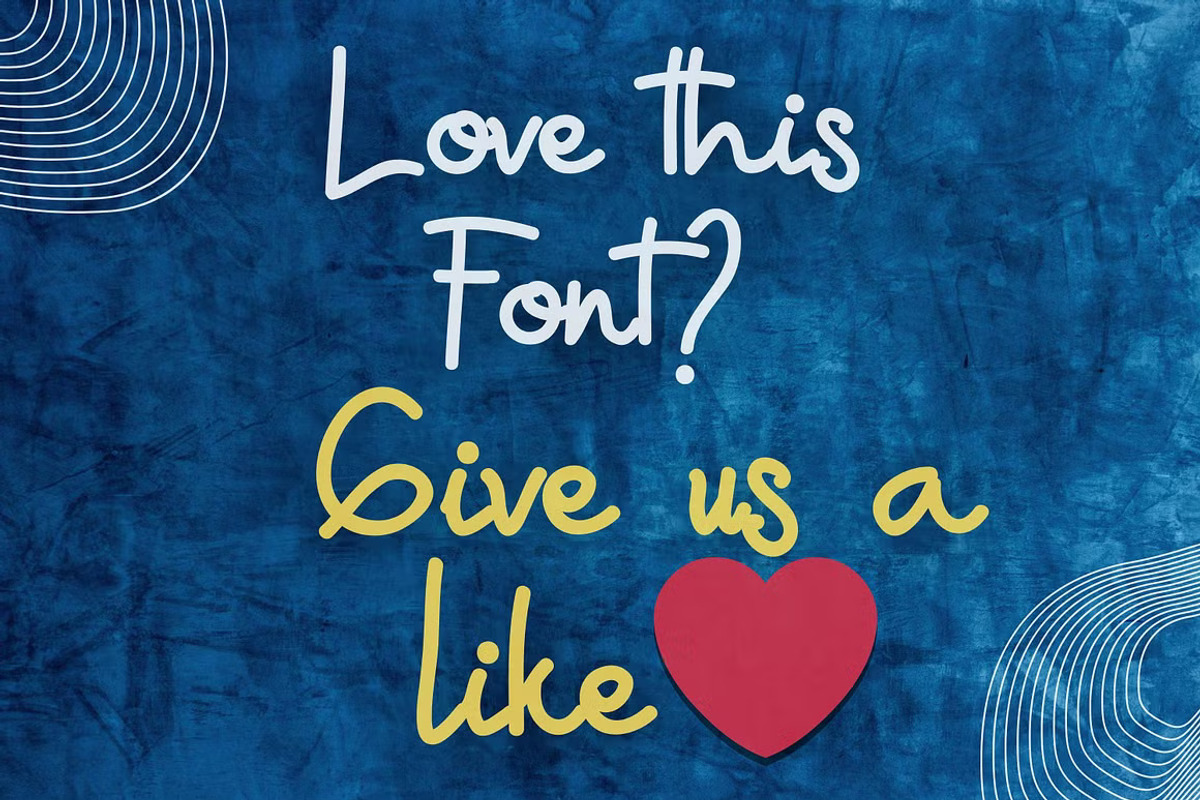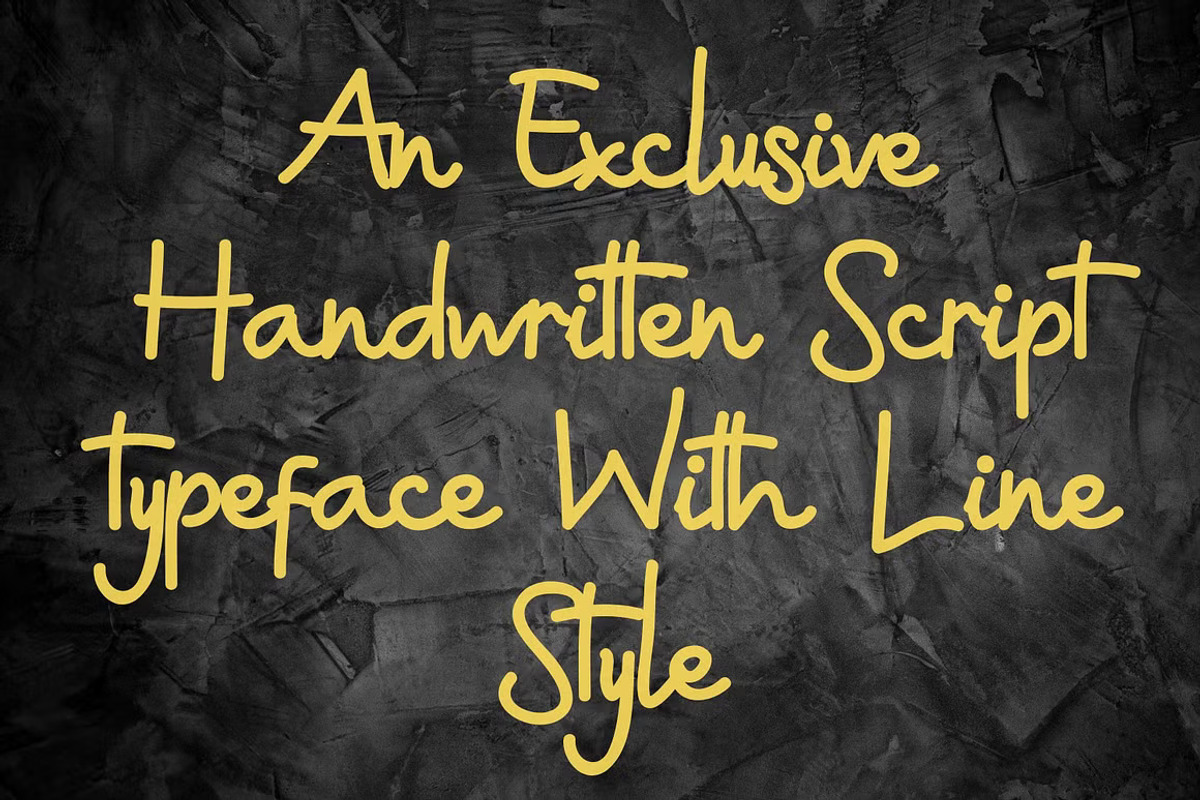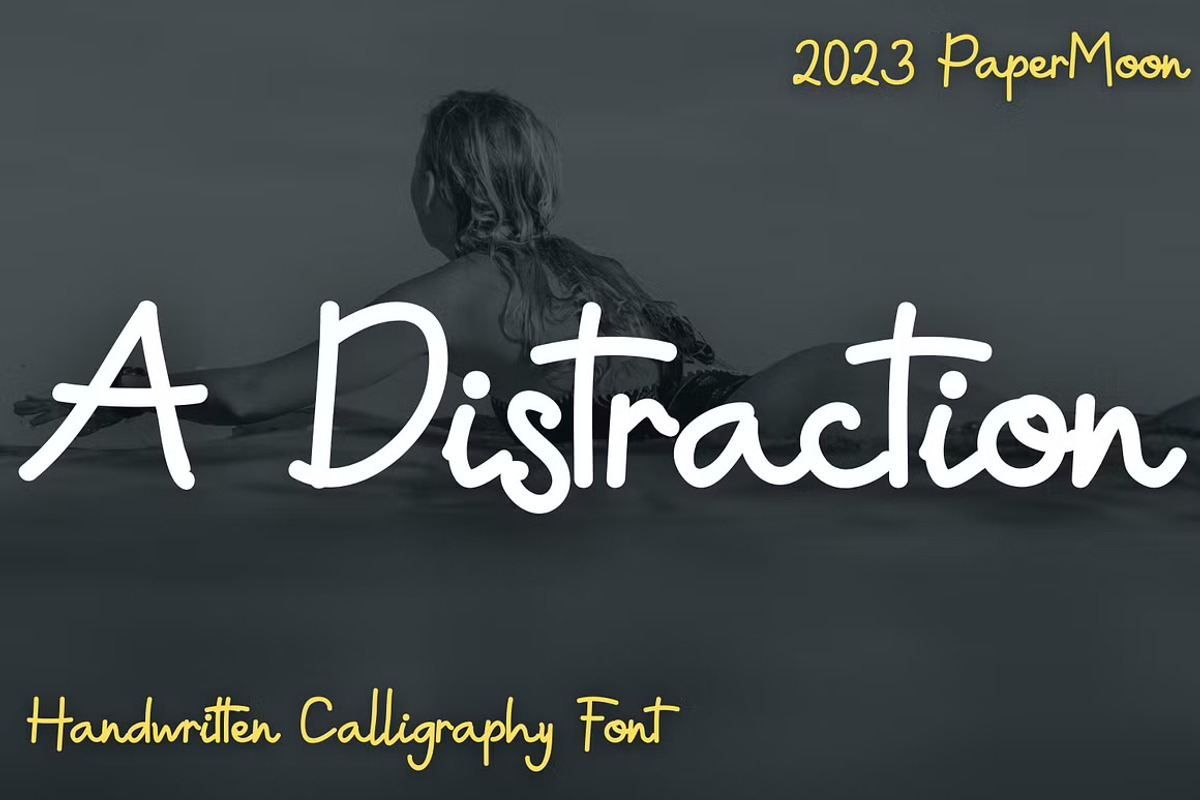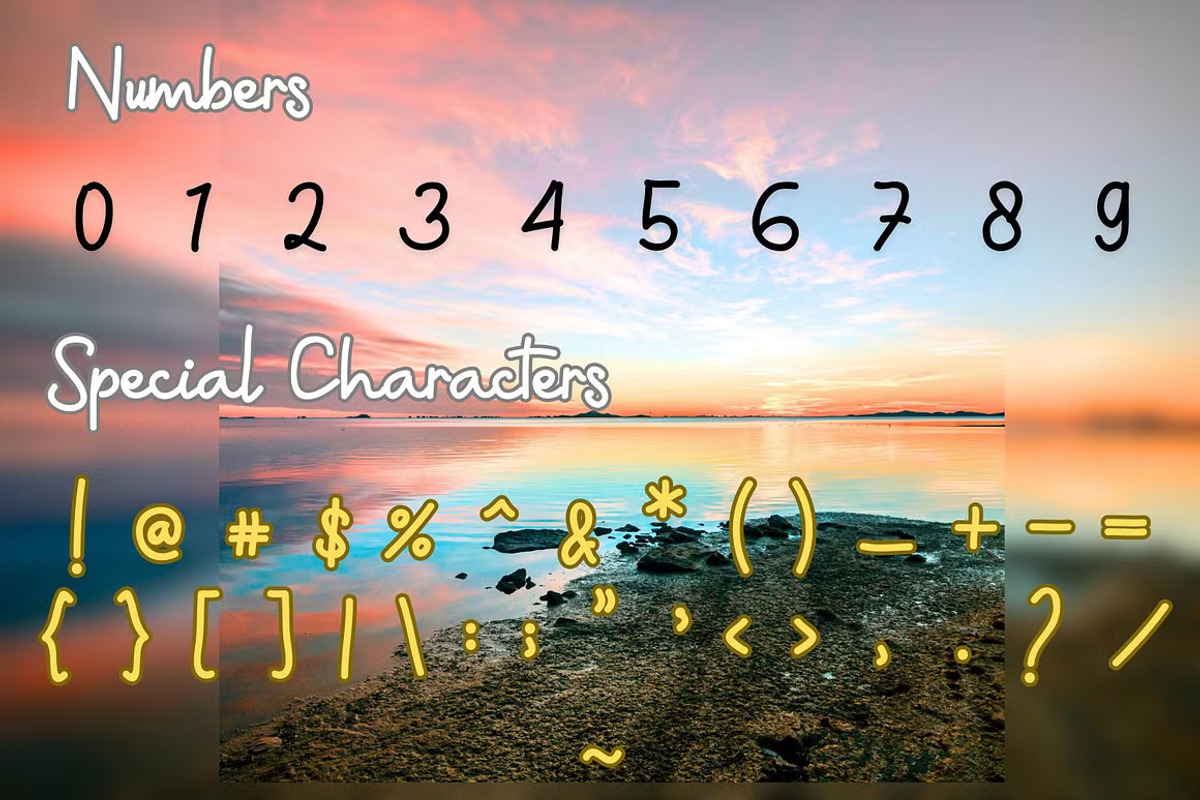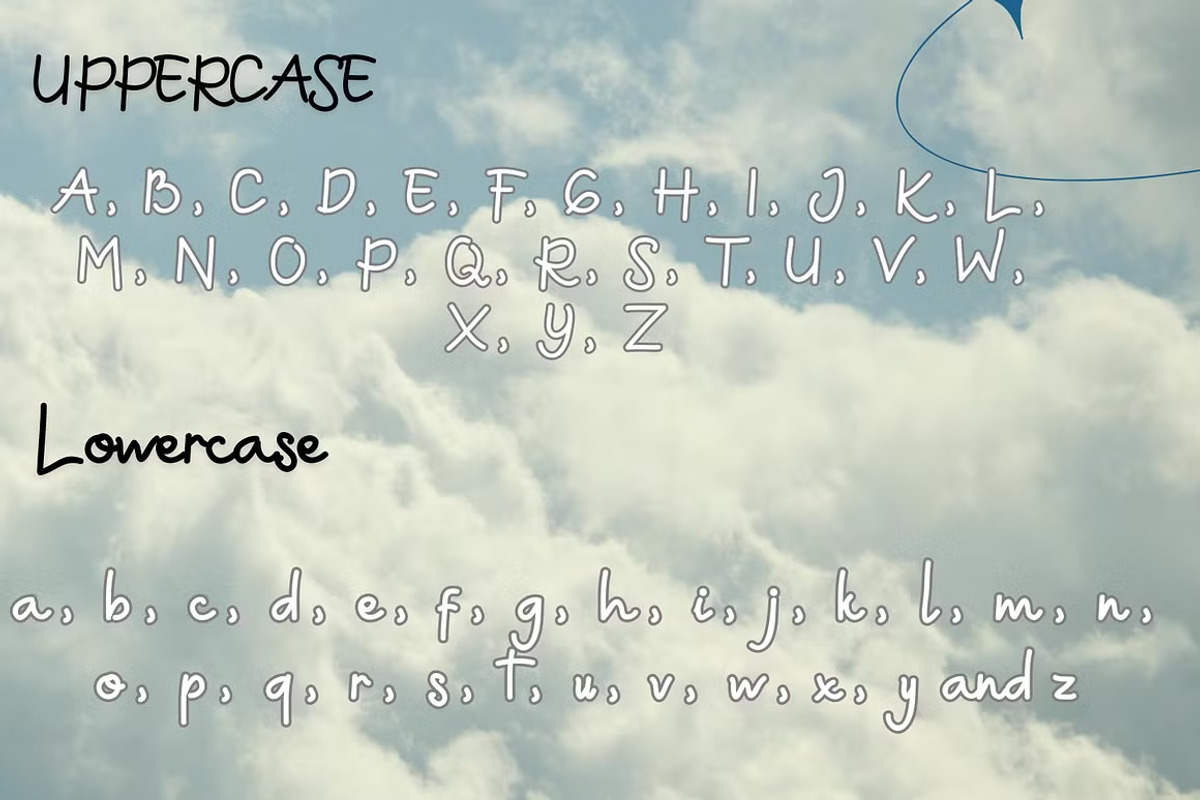
A Distraction: Handwritten Font
Introducing A Distraction Font: A Unique Handwritten Script for Stylish Creations
Hey there, Everyone! We’re excited to introduce our latest font creation – A Distraction Font.
Hailing from the talented artists in Indonesia, A Distraction is a charming handwritten script font, carefully crafted to deliver a distinctive and elegant look. With its clean, line-based design, this typeface exudes vintage appeal, style, and classic sophistication. The meticulously designed character set, with precise spacing and kerning, ensures that A Distraction Font brings a refined touch to any project.
This versatile font is perfect for a variety of design projects, including branding, logos, stationery, business cards, signage, flyers, brochures, and more. Its adaptability makes it an ideal fit for industries such as weddings, events, real estate, architecture, law firms, floristry, gardening, makeup artistry, travel, hotels, and the music industry, providing endless creative possibilities.